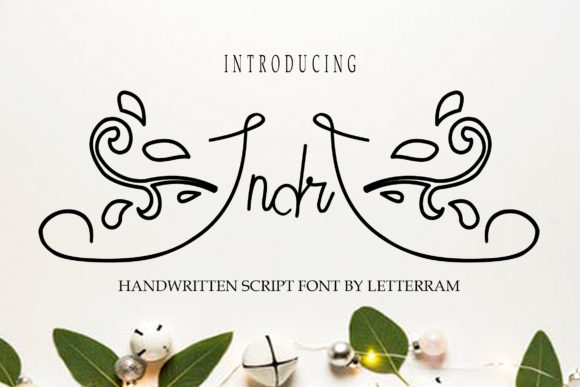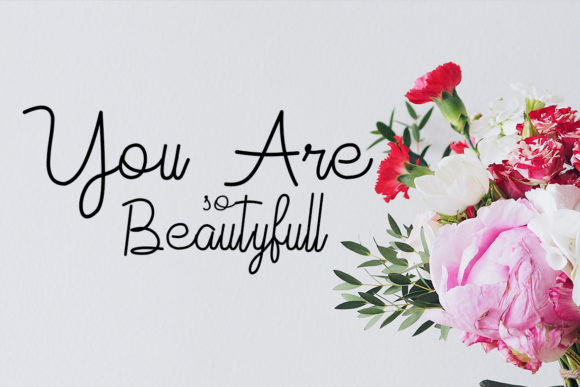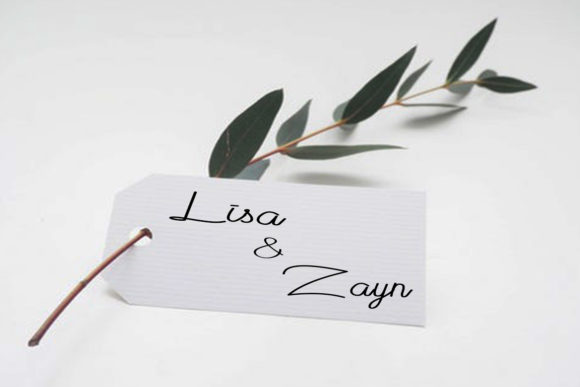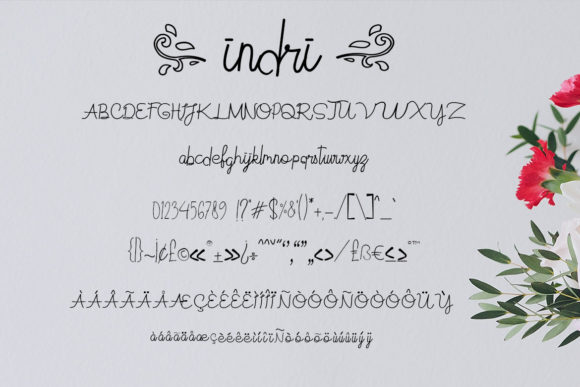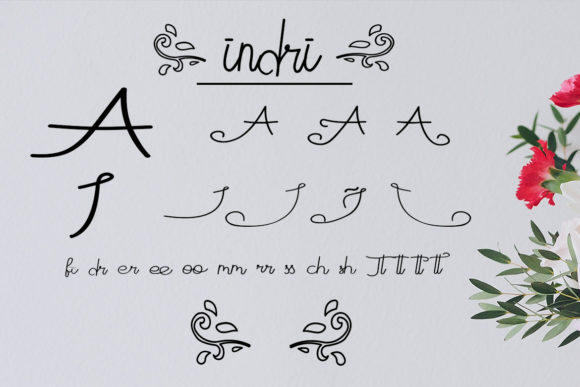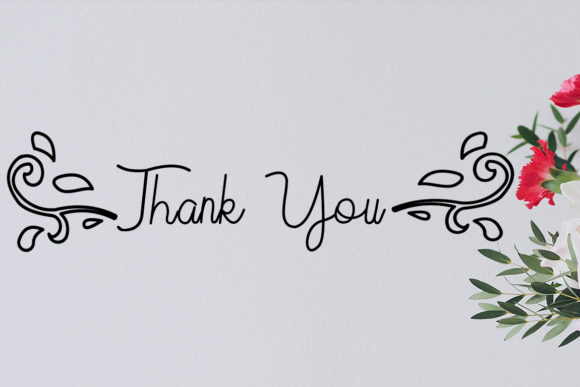
Indri Font
About Indri Font
The Indri is an amazing, modern font with beautiful characteristics. It can be used for logos, invitations, signatures, clothing, magazines, and much more!